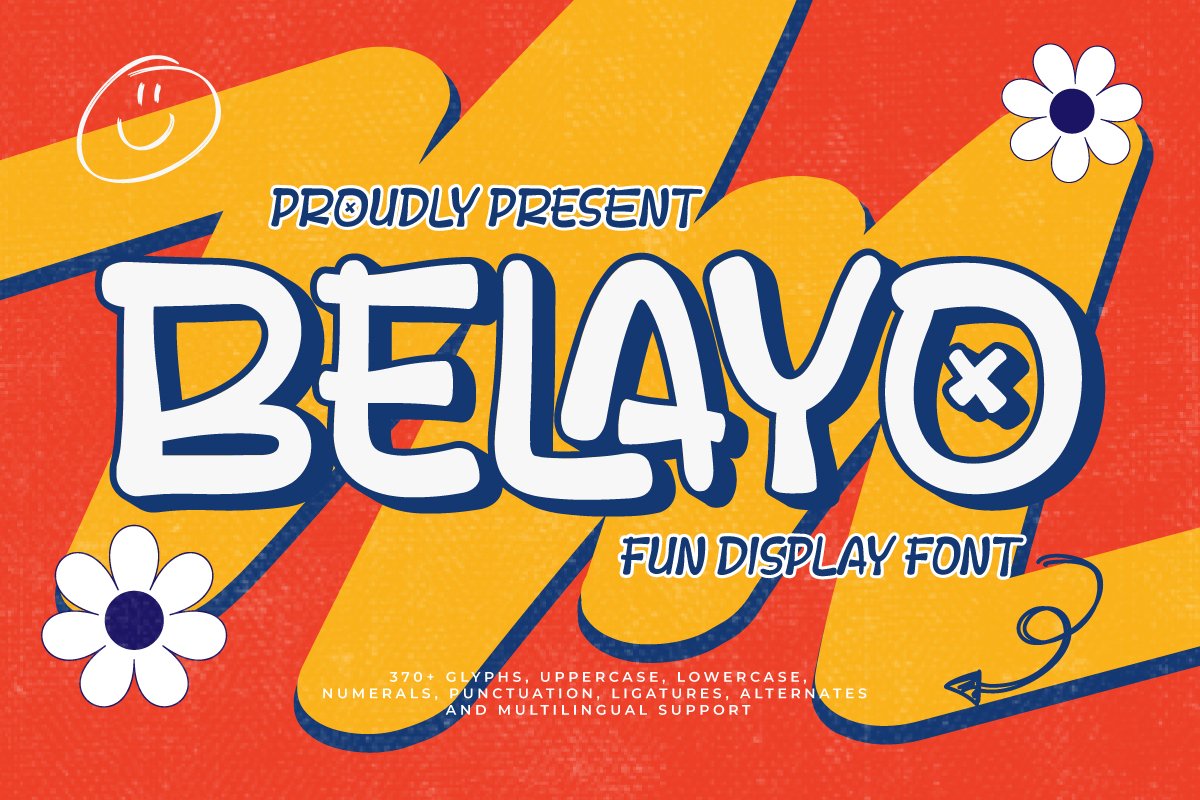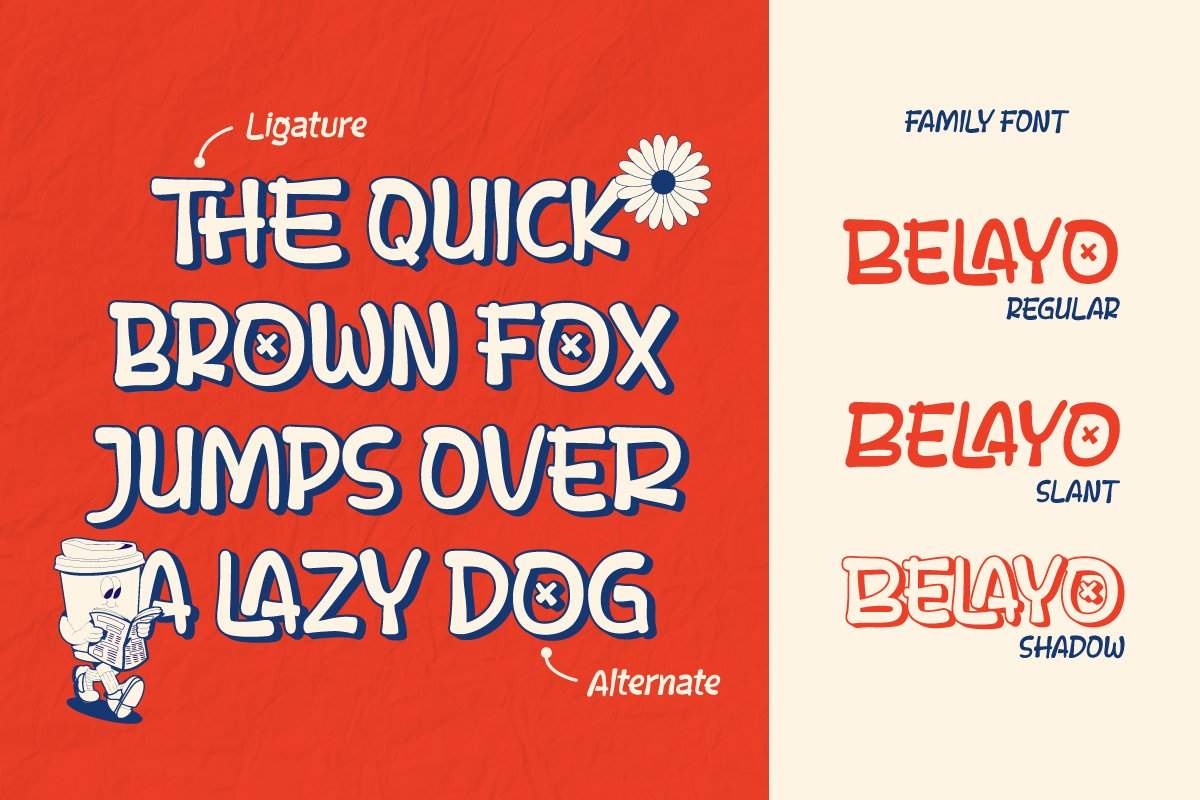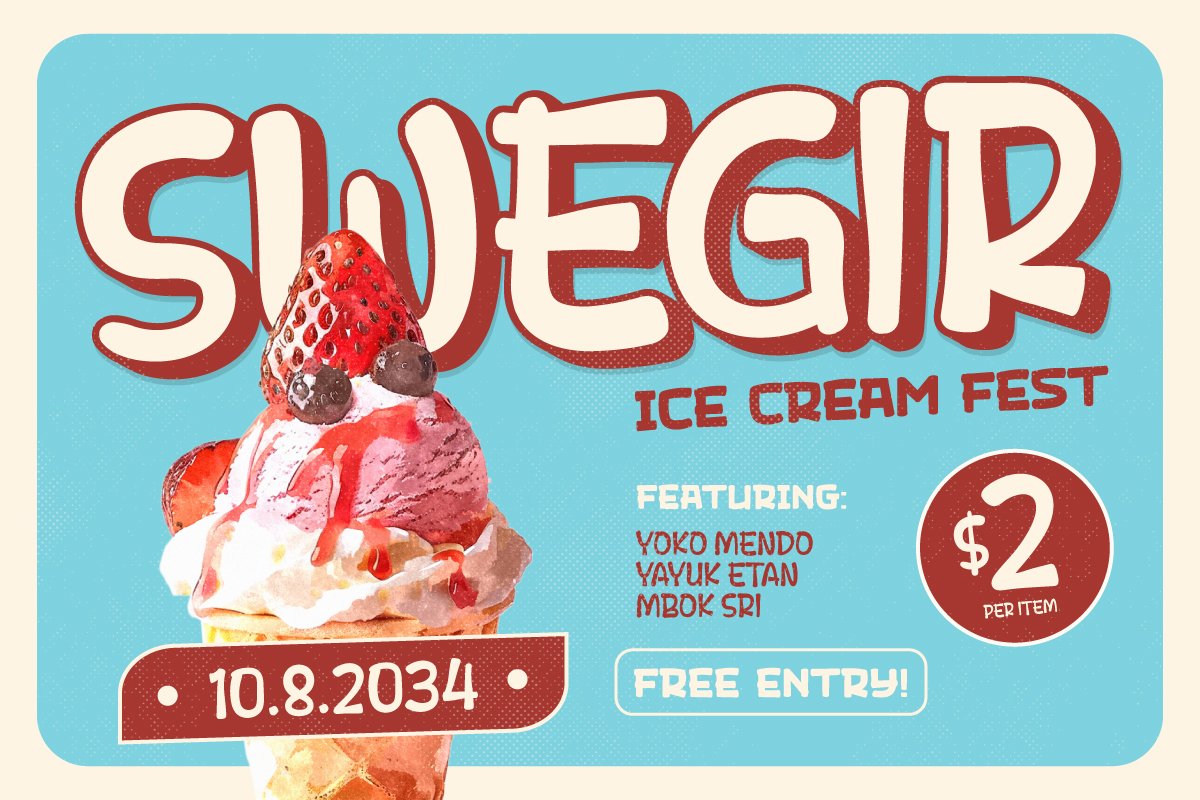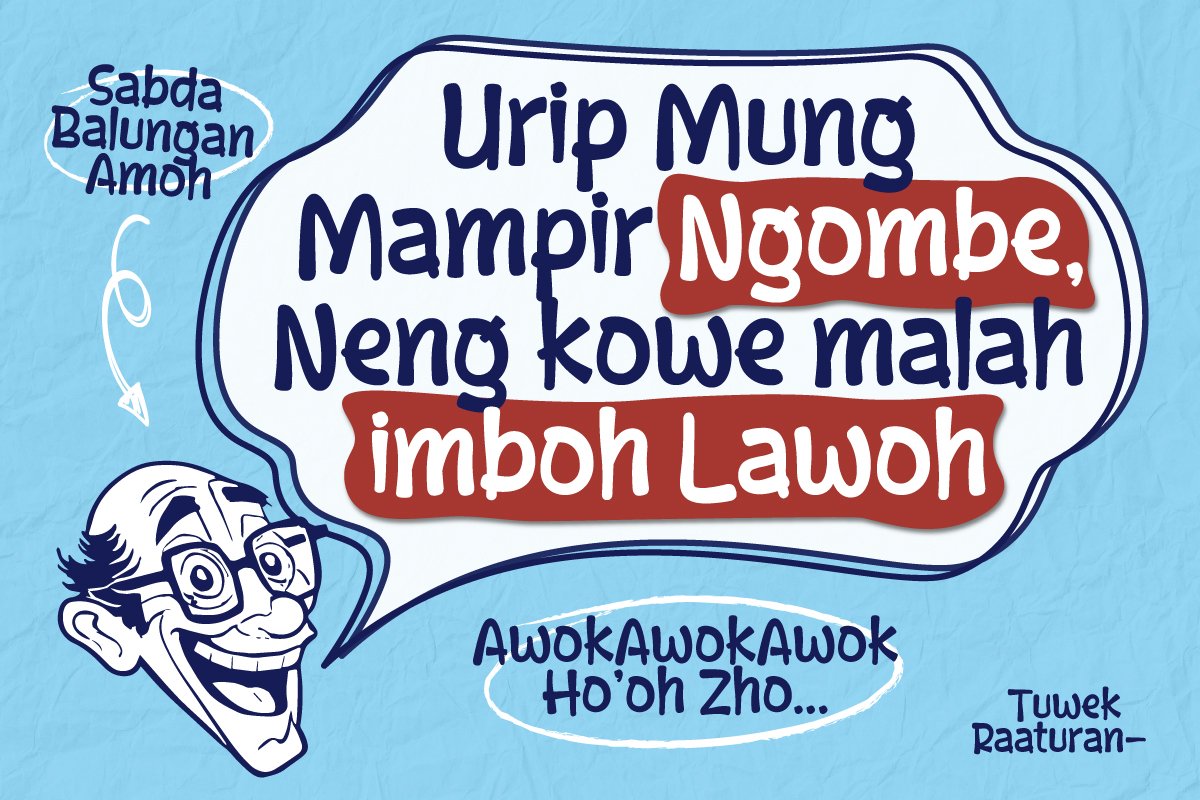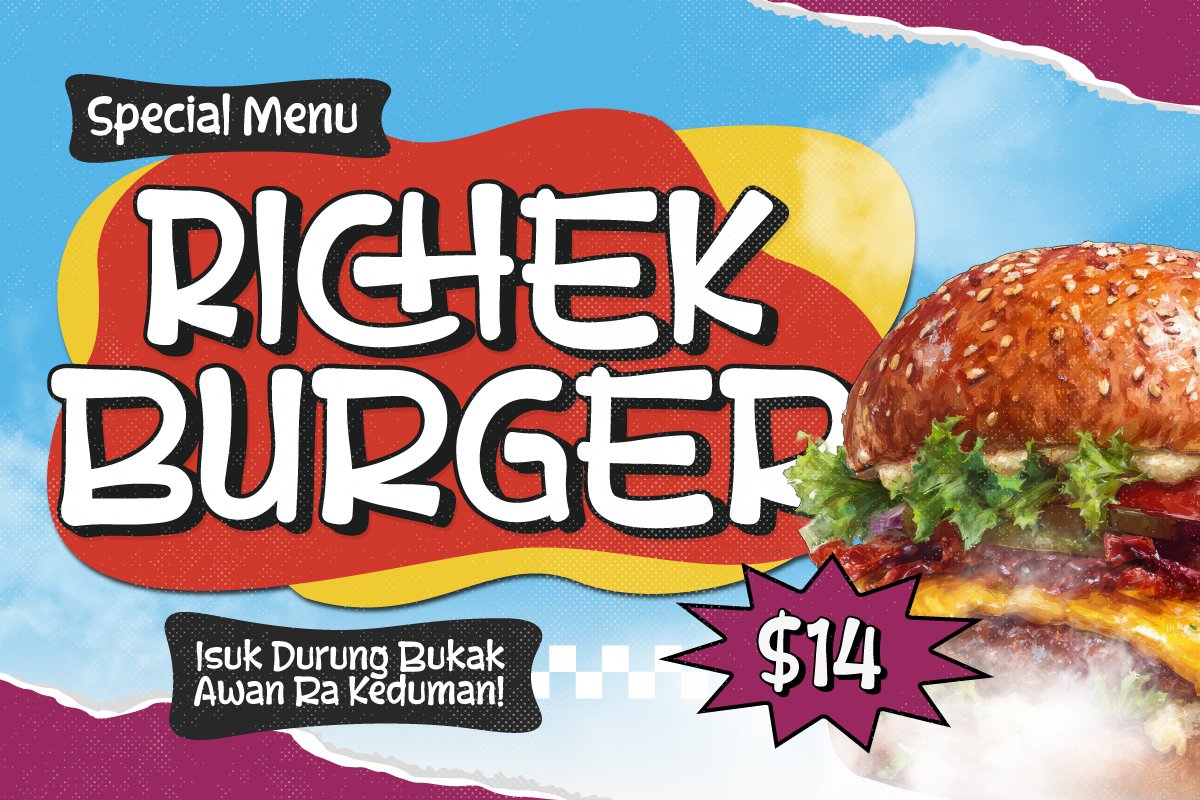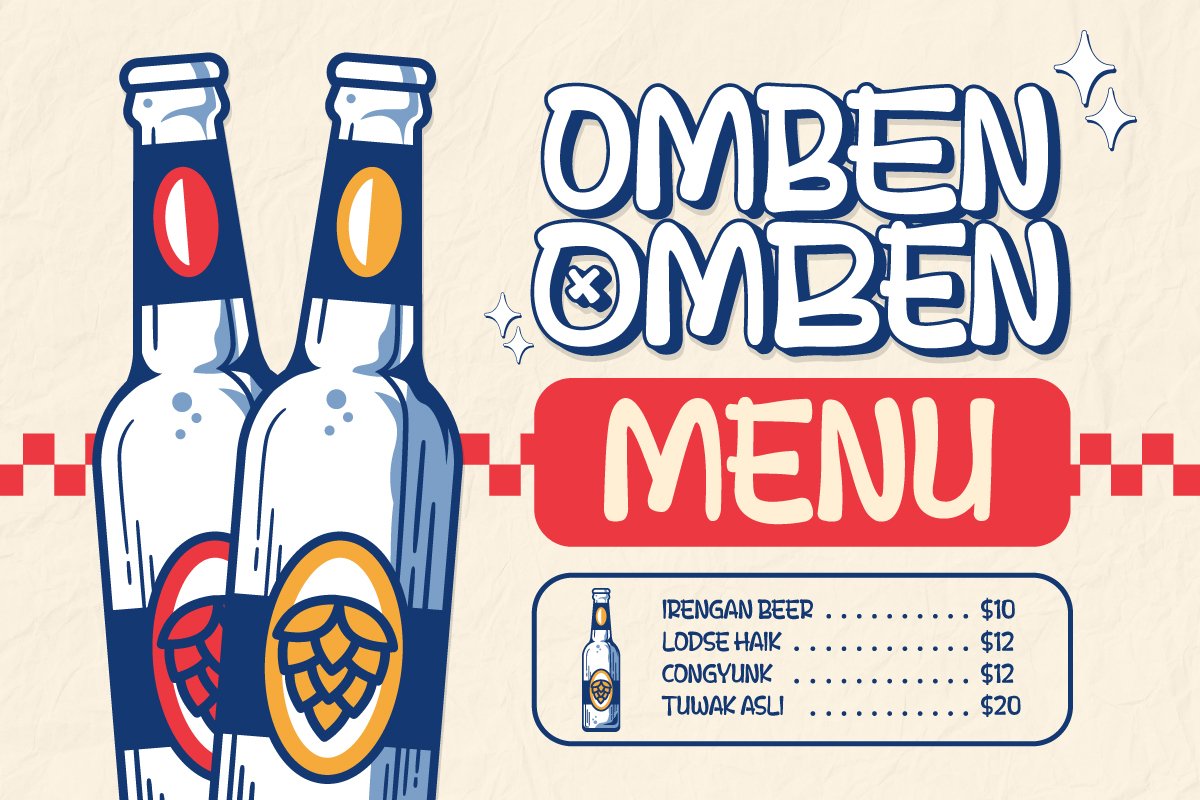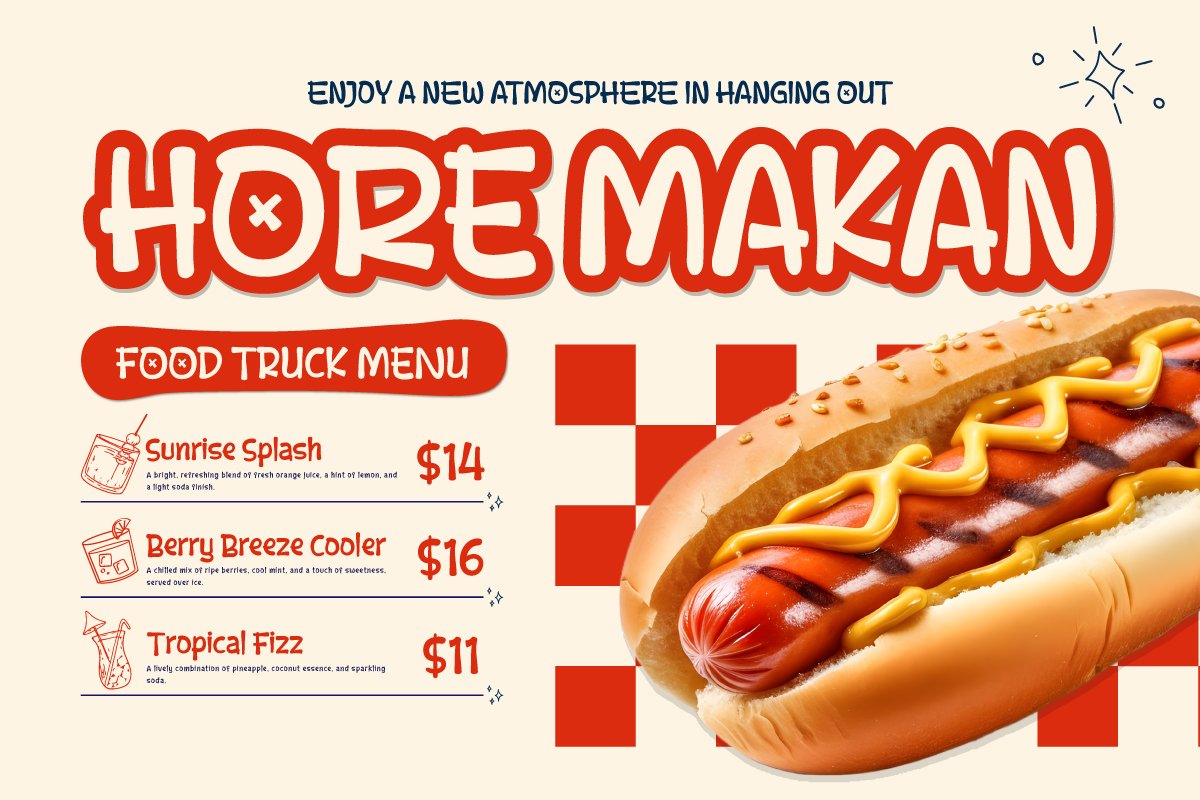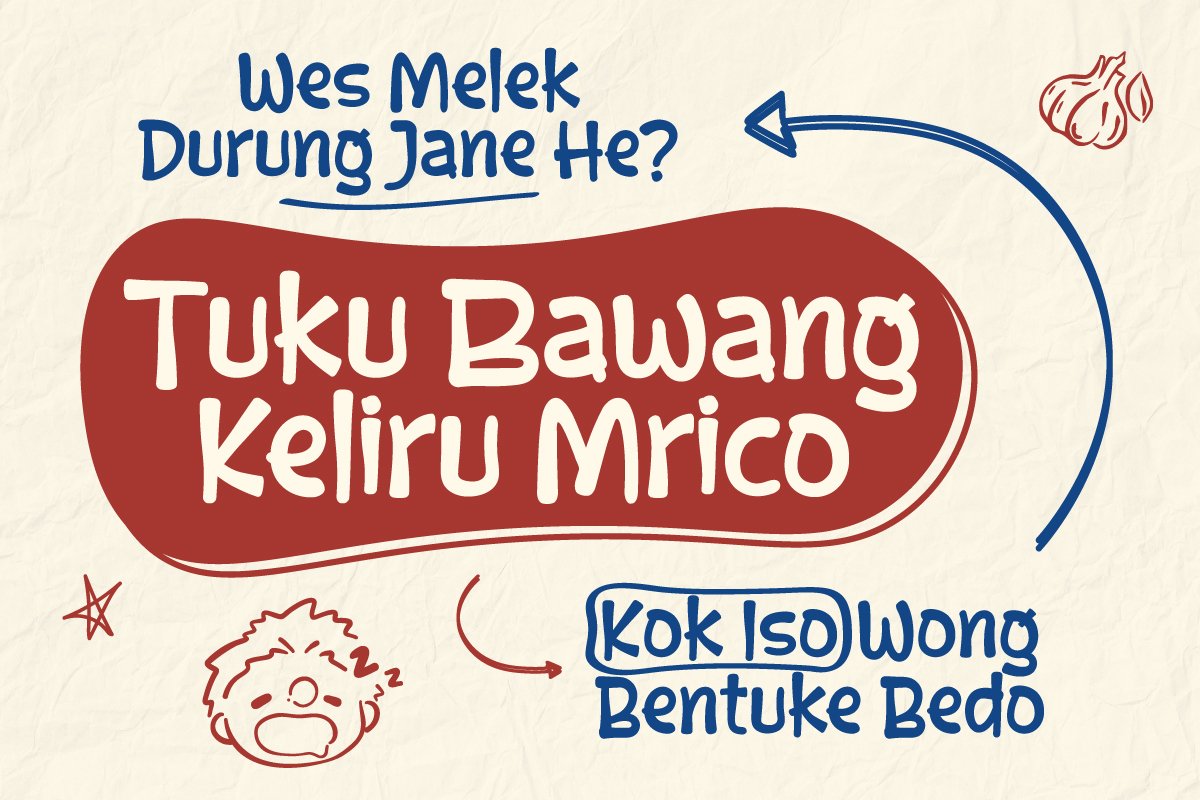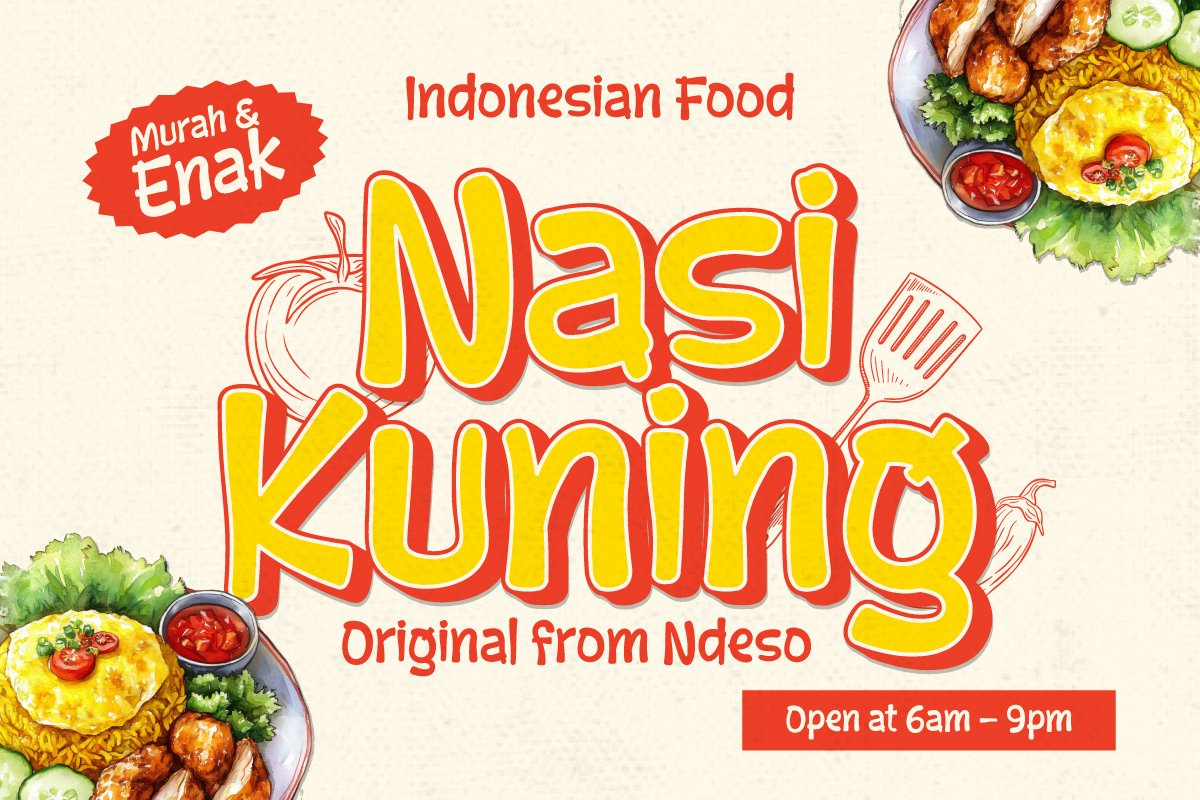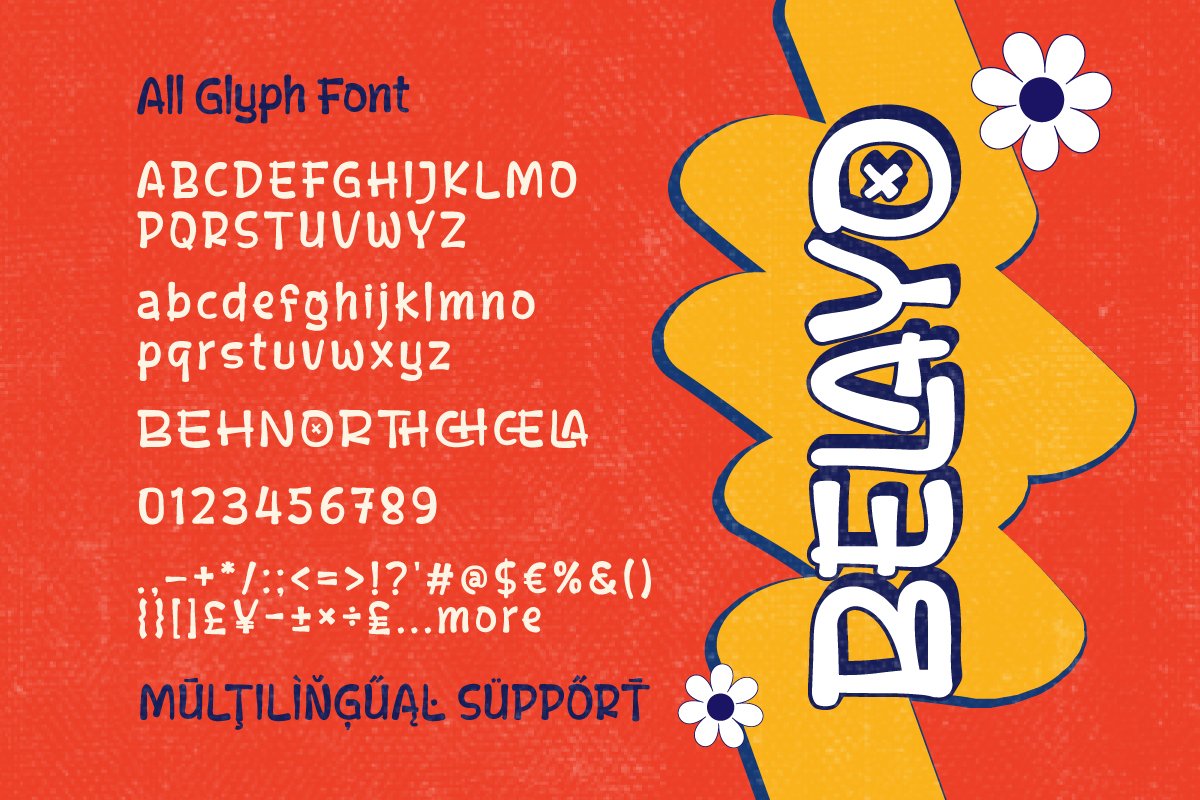
Belayo – Fun Display Font
Belayo is a cheerful, character-filled Fun Display Font typeface, designed to create a friendly, energetic, and cute atmosphere in every design. Merging retro handwriting elements with unique chubby and bubbly letterforms, Belayo provides a strong, memorable, and delightfully fun identity.
The font comes with over 370 glyphs, including uppercase and lowercase letters, punctuation, ligatures, alternates, and extensive multilingual support. Its visual flexibility is further enhanced by style options like Regular, Slant, and Shadow perfect for achieving a vintage 3D pop-out effect. Its bold structure ensures maximum visual impact across all platforms, making it a versatile asset for modern needs up to groovy retro aesthetics.
Belayo is ideal for projects requiring a playful and familiar vibe. Its key use cases include Food Branding (menus, food packaging), children’s product designs, creative event posters, social media headlines, and promotional materials that evoke a smile. The combination of unique shapes and a friendly feel makes it the premier Bubble Font for brands seeking to stand out and be instantly lovable by their audience.